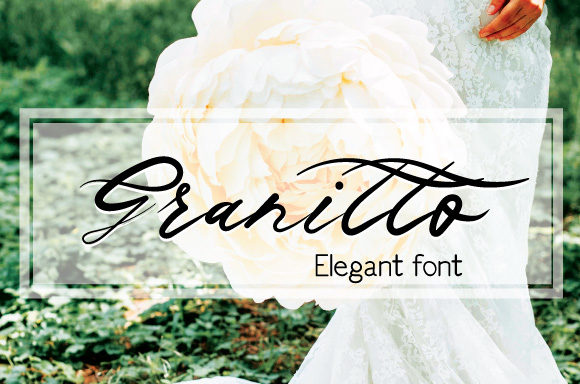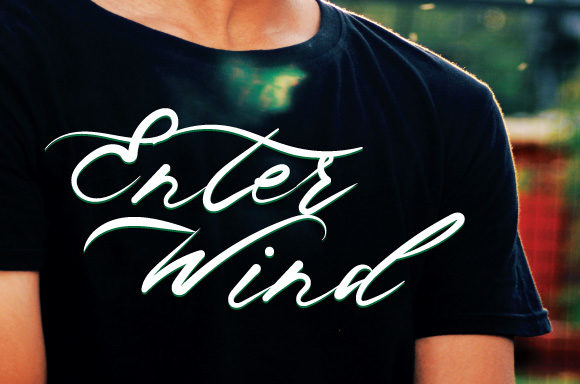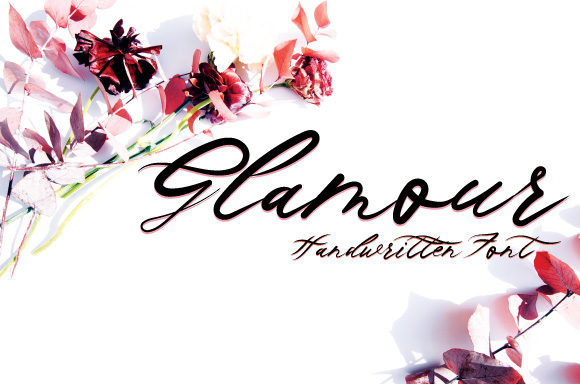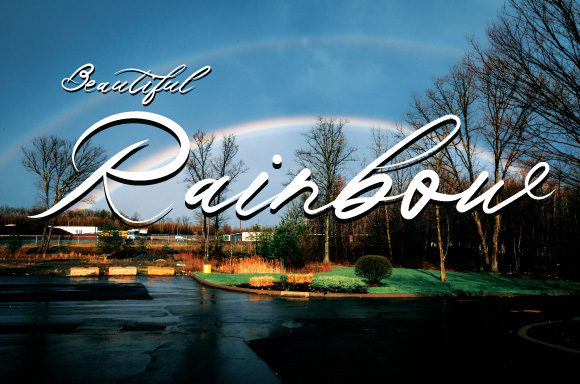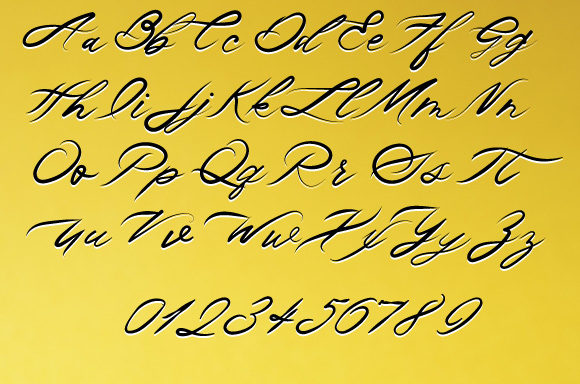
Granitto Font
About Granitto Font
Granitto is a stylish and elegant handwritten font that pays homage to classic calligraphy. With its sophisticated and graceful strokes, this font adds a touch of timeless beauty to a variety of design projects. Here are some creative ideas to use Granitto font and elevate your designs to the highest level:
1. Wedding Invitations: Design exquisite and elegant wedding invitations using Granitto font. Its calligraphic influences will add a touch of romance and sophistication to the invitations.
2. Branding and Logo Design: Incorporate Granitto font into your branding materials and logos to create a luxurious and elegant brand identity.
3. Greeting Cards: Use Granitto font to create stunning and heartfelt greeting cards for various occasions, such as birthdays, anniversaries, and more.
4. Book Covers: Apply Granitto font to book covers, especially for genres that require an elegant and classic touch, such as romance novels or poetry collections.
5. Magazine Headings: Use Granitto font for magazine headings and titles to add a touch of elegance and allure to the publication.
6. Product Packaging: Design upscale product packaging with Granitto font, perfect for high-end or luxury products.
7. Social Media Quotes: Create eye-catching and inspirational social media quotes using Granitto font to capture the attention of your audience.
8. Art Prints: Design beautiful art prints with quotes or phrases using Granitto font, perfect for home decor or gifts.
9. Luxury Invitations: Use Granitto font for upscale event invitations, such as gala dinners, charity events, and exclusive parties.
10. Fine Dining Menus: Design elegant menus for upscale restaurants or fine dining establishments using Granitto font.
11. Fashion and Beauty Brands: Incorporate Granitto font into the branding and packaging for fashion or beauty products to evoke a sense of sophistication and elegance.
12. Wine Labels: Apply Granitto font to wine labels to add a touch of elegance and luxury to the packaging.
13. Fine Arts and Calligraphy Projects: Utilize Granitto font as part of fine arts or calligraphy projects, embracing its classic calligraphic style.
In summary, Granitto is a stylish and elegant handwritten font that brings a touch of classic calligraphy to your designs. Its graceful and sophisticated strokes make it suitable for a wide range of projects, from wedding invitations to branding materials and more. Whether you’re designing luxury product packaging, elegant event invitations, or art prints with inspirational quotes, Granitto font will elevate your designs to the highest level, creating a lasting impression of beauty and sophistication. Embrace the timeless charm of Granitto font and let it add an air of elegance to your design projects, making them truly stand out and captivate your audience.